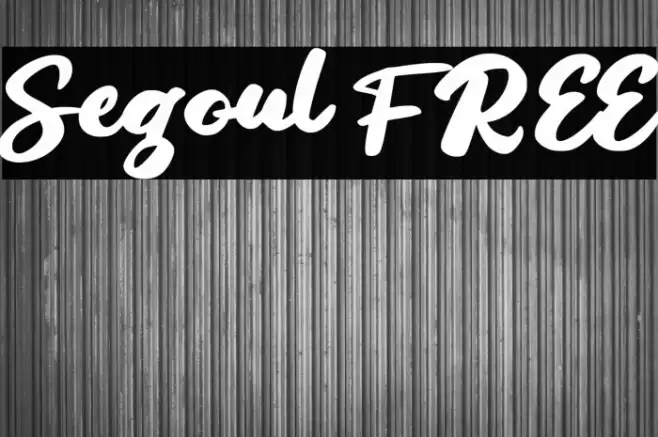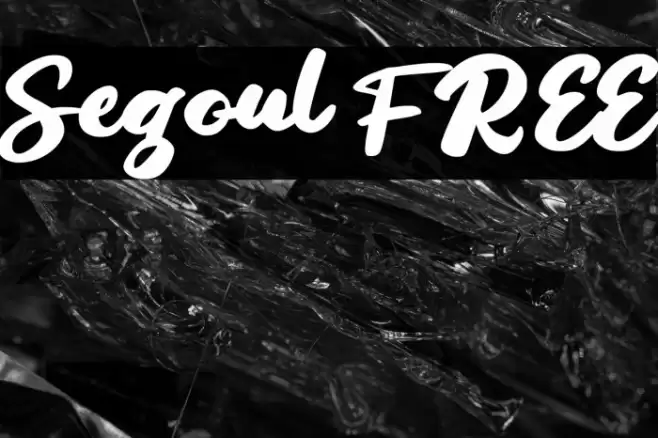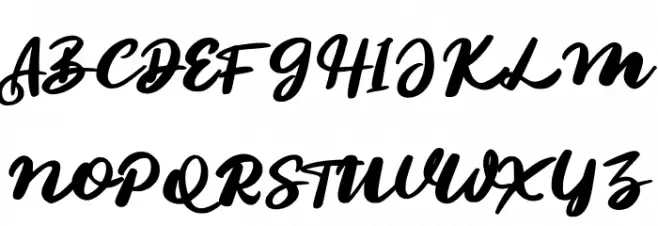
Segoul FREE Font
Segoul FREE Description
This font features a bold, cursive style with a smooth and flowing appearance. The letters are interconnected, creating a seamless and elegant look. The uppercase letters are slightly larger and more pronounced, while the lowercase letters maintain a consistent flow. The strokes are thick, providing a strong presence, and the overall design is both modern and stylish. This font is ideal for creating a dynamic and engaging visual impact, suitable for various creative projects.
A bold, cursive font with interconnected, flowing letters and a modern style from Regular fonts.
- Proposed Projects: Ideal for branding, invitations, social media graphics, and creative headlines.
- Character Spacing: Tight
- Use Case: Logos, Headlines, Invitations